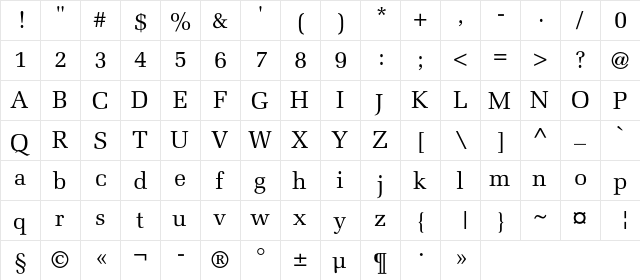
AGMelanie Regular
Design Context for AGMelanie Typeface
AGMelanie is a composed and adaptable typeface that performs quietly and consistently across a wide range of design contexts.